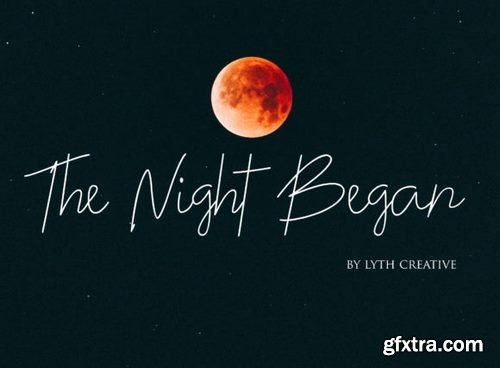
The Night Began Font
The Night Began is a classy script with typographic harmony for a diversity of design projects, including logos & branding, wedding designs, social media posts, advertisements & product designs.